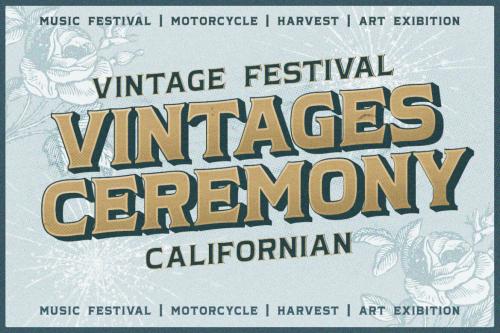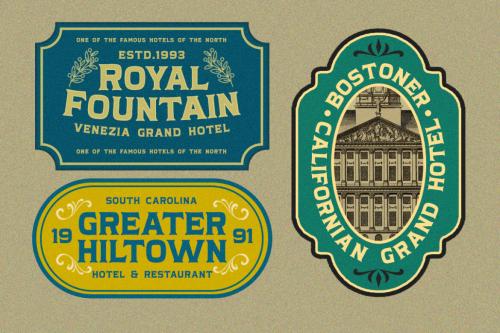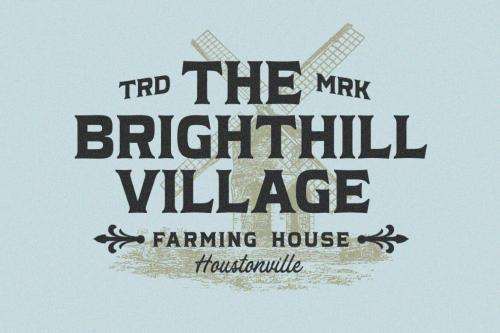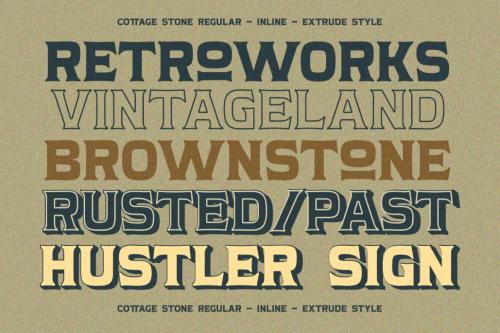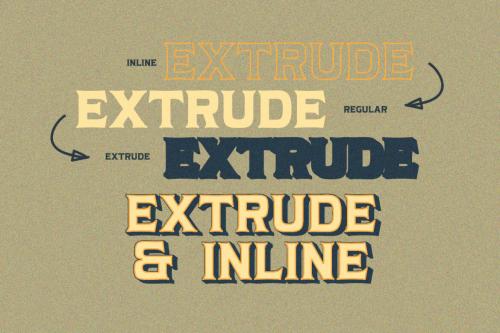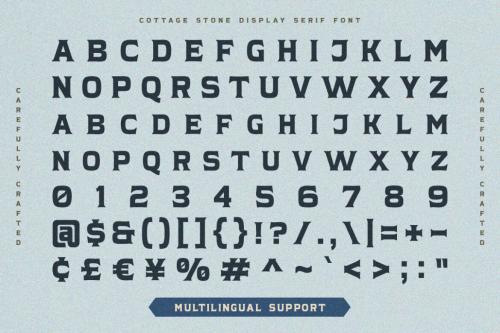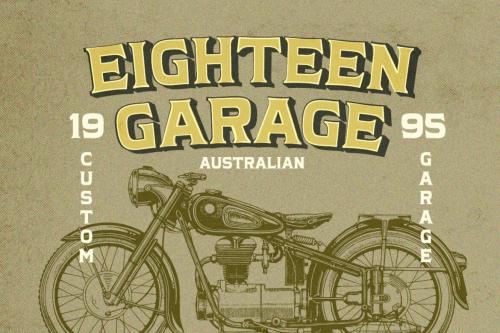
Deeezy - Cottage Stone - Display Serif Font
Cottage Stone is a bold serif font with classic and vintage looks. This type of font perfectly made which is need a standout font, and the other various formal forms such as invitations, labels, logos, magazines, books, greeting u002F wedding cards, packaging, fashion, make up, stationery, novels, labels or any type of advertising purpose.